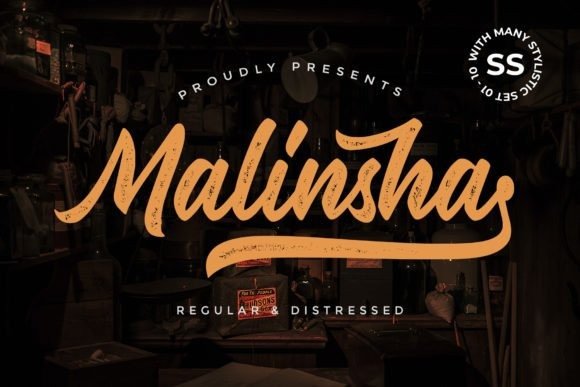
Malinsha Script Font
Malinsha Script Font is a script typeface that has a unique style, it has a classic style and a little vintage. It’s designed and shared by Arterfak Project. This font is a unique and flowing handwritten font, featuring a vintage style. It looks beautiful on thank you cards, quotes, greeting cards, logos and much more!